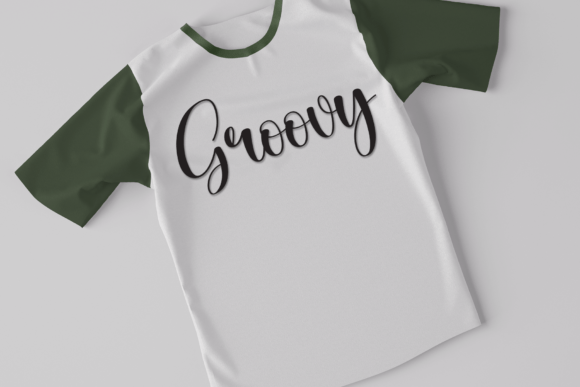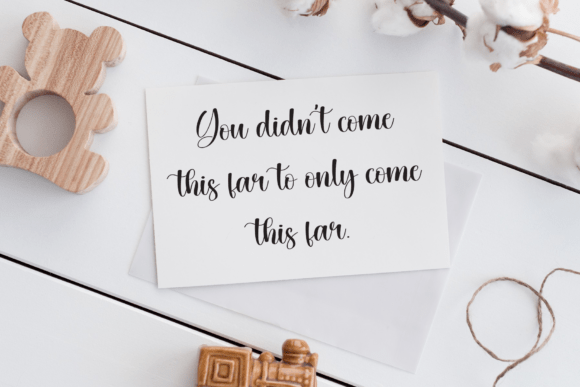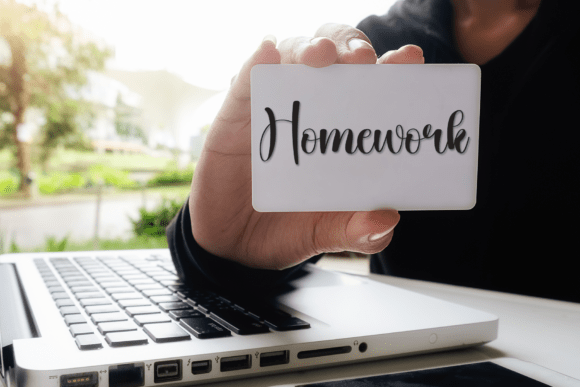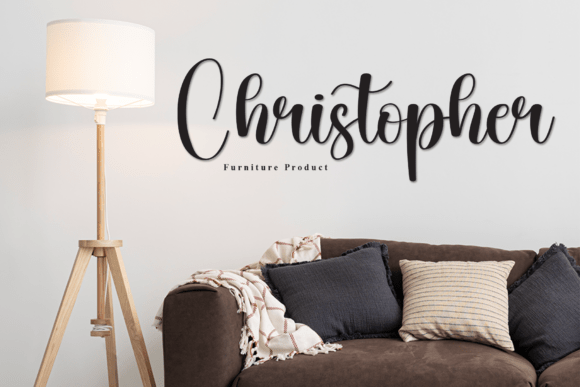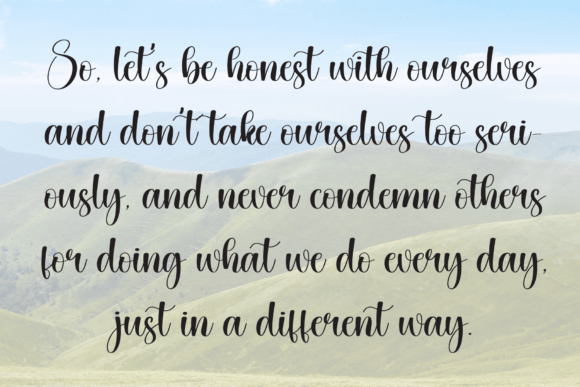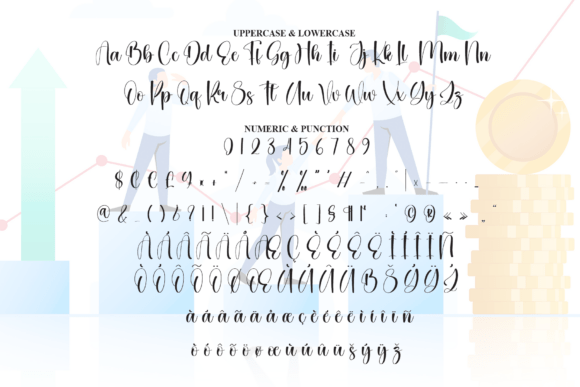
Unlock the Power of Sophistication with Benefit Font
In the world of typography, a well-crafted font can elevate your creative assets from ordinary to extraordinary. Introducing Benefit, a sophisticated handwritten script that strikes the perfect balance between professional clarity and artistic flair. This elegant typeface is designed to add a touch of refinement to your designs, making it an exceptional choice for a wide range of applications.
The Art of Benefit Font
Benefit boasts an upright structure with fluid terminals and organic connections, giving it a distinctive and refined appearance. The font’s elegant lines and curves create a sense of movement and fluidity, making it perfect for designs that require a touch of sophistication. Whether you’re working on corporate branding, lifestyle blog headers, motivational social media graphics, or modern stationery, Benefit is the ideal choice.
Key Features of Benefit Font
- Elegant and Refined: Benefit features an elegant, upright structure with fluid terminals and organic connections, making it perfect for designs that require a touch of sophistication.
- Professional Clarity: Despite its artistic flair, Benefit maintains a high level of professional clarity, making it suitable for corporate branding and other applications where legibility is crucial.
- Hand-Touched Aesthetic: Benefit delivers a personal, hand-touched aesthetic that feels both approachable and authoritative, making it perfect for designs that require a human touch.
- Versatile: Benefit is a versatile typeface that can be used for a wide range of applications, from corporate branding to lifestyle blog headers and social media graphics.
Applications of Benefit Font
Benefit is an exceptional choice for a variety of design applications, including:
- Corporate Branding: Use Benefit to create a sophisticated and professional brand identity that sets you apart from the competition.
- Lifestyle Blog Headers: Add a touch of elegance to your blog headers with Benefit, making your content stand out and leaving a lasting impression on your readers.
- Motivational Social Media Graphics: Use Benefit to create inspiring and motivational social media graphics that resonate with your audience.
- Modern Stationery: Add a touch of sophistication to your modern stationery with Benefit, making your correspondence and documents stand out.
Why Choose Benefit Font?
With so many typefaces available, why choose Benefit? Here are just a few reasons why Benefit stands out:
- Unique Aesthetic: Benefit offers a unique and distinctive aesthetic that sets it apart from other typefaces.
- High Legibility: Benefit maintains a high level of legibility, making it suitable for a wide range of applications.
- Flexibility: Benefit is a versatile typeface that can be used for a variety of design applications.
- Ease of Use: Benefit is easy to use and pairs well with a variety of other typefaces.
Tips for Using Benefit Font
To get the most out of Benefit, here are a few tips to keep in mind:
- Use it Sparingly: Use Benefit sparingly to add emphasis and create visual interest in your designs.
- Pair it with Other Typefaces: Pair Benefit with other typefaces to create a unique and visually appealing combination.
- Keep it Simple: Keep your designs simple and uncluttered to allow Benefit to shine.
In conclusion, Benefit is a sophisticated handwritten script that offers a unique and refined aesthetic. With its elegant lines, fluid terminals, and organic connections, Benefit is perfect for designs that require a touch of sophistication and professionalism. Whether you’re working on corporate branding, lifestyle blog headers, motivational social media graphics, or modern stationery, Benefit is the ideal choice. So why wait? Unlock the power of sophistication with Benefit font and take your creative assets to the next level.